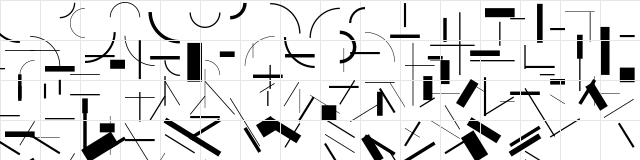
Fibonacci Regular Free Font
Fibonacci Regular
Complete Fibonacci Regular glyph index. Displaying only characters natively supported by Fibonacci Regular font.
Design Context for Fibonacci
Fibonacci is a composed and adaptable typeface that performs quietly and consistently across a wide range of design contexts.
Pro Tip: Use Fibonacci in both headline and body roles to test its range before committing to a single application.